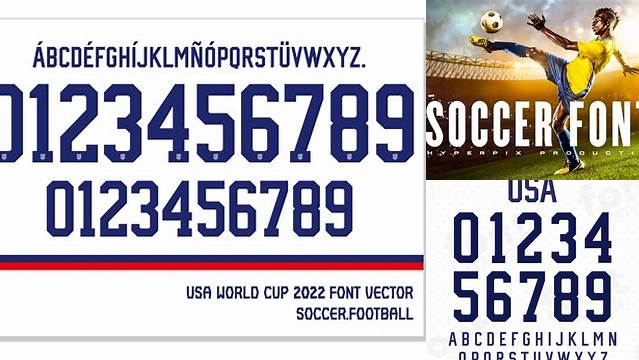
Alright guys, let's dive into something super cool: getting your hands on the US Soccer font! If you're a fan of the beautiful game, or even if you just dig the sleek, modern look, you're probably familiar with the official typeface used by the United States Soccer Federation. The good news? You can often find a US Soccer font free download! This guide will walk you through everything you need to know, from where to find it to how to use it. We'll explore the history of the font, its variations, and how you can incorporate it into your own projects, whether it's designing a team logo, creating social media graphics, or even just making your emails look a little more stylish. So, buckle up, because we're about to become font fanatics! This article is your go-to resource for all things related to the official US Soccer font and where to find those coveted free download options. Let's get started and elevate your design game with a touch of soccer style!